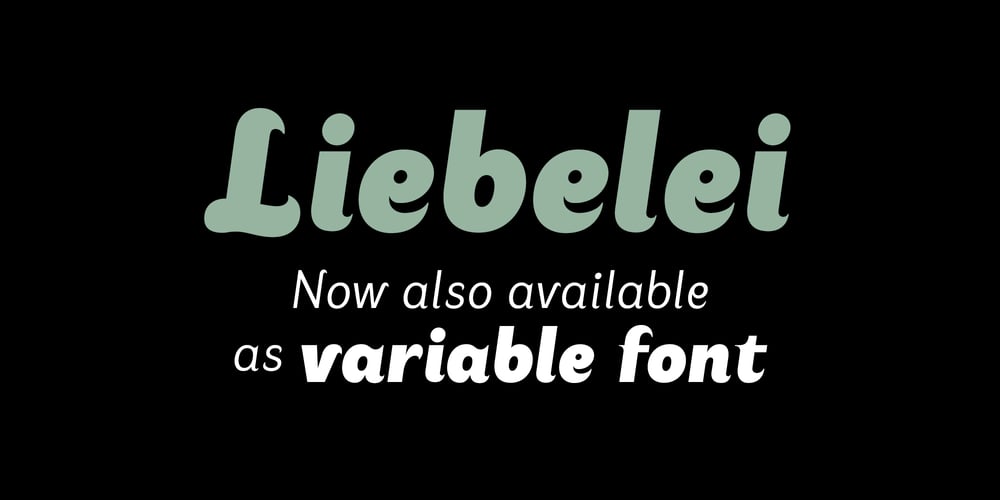
Liebelei Variable Font Family was designed by Ekke Wolf and published by Wannatype. Liebelei Variable contains 2 styles and family package options. The typeface Liebelei has its roots back in 1932, when Vienna-based painter Rudolf Vogl created the poster for a movie called Liebelei after the popular play by Arthur Schnitzler. Now also available as Variable font!